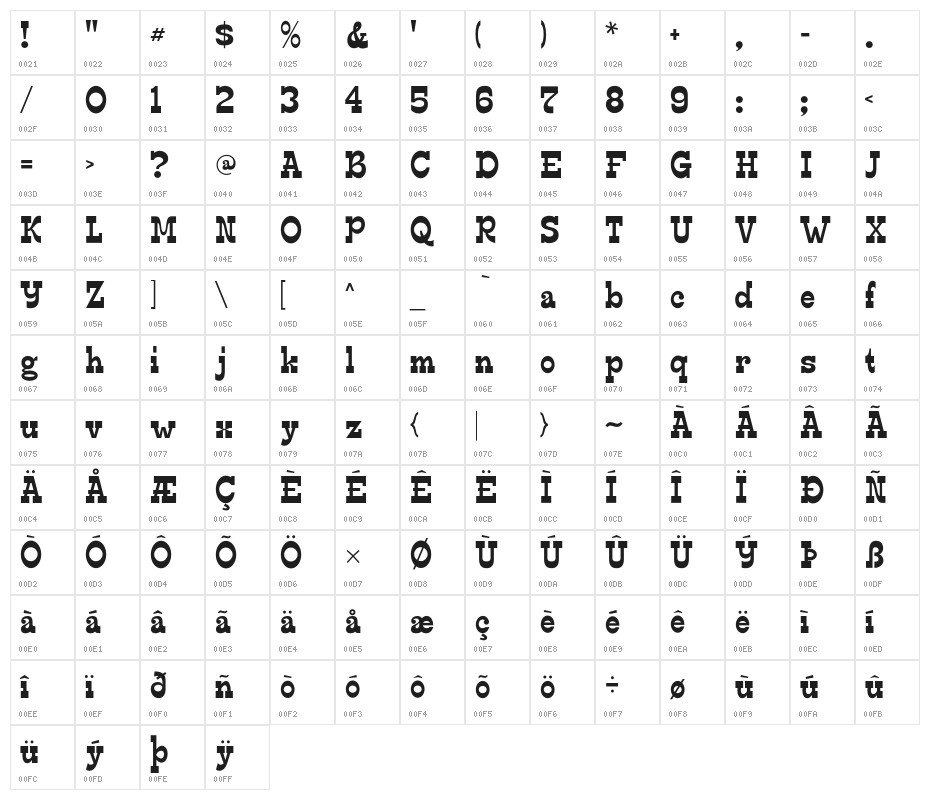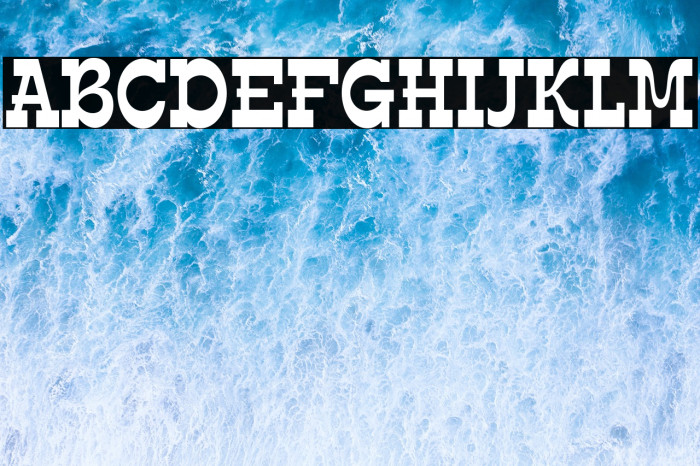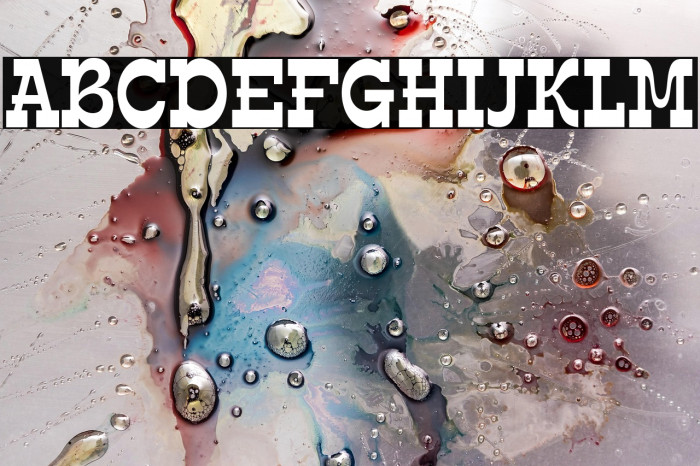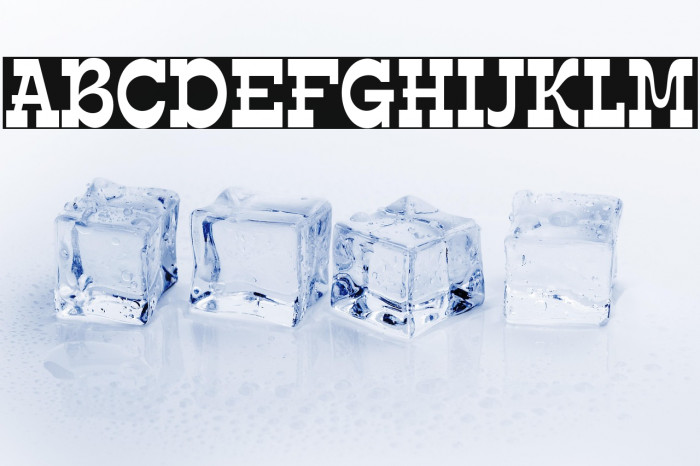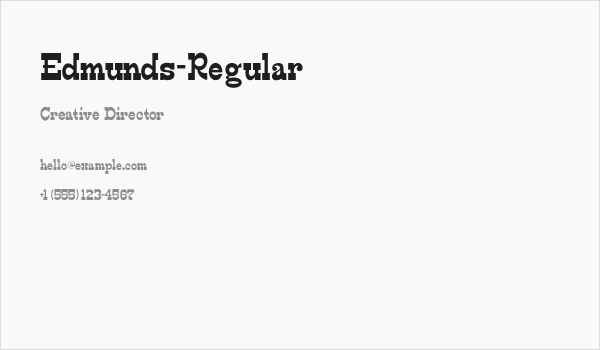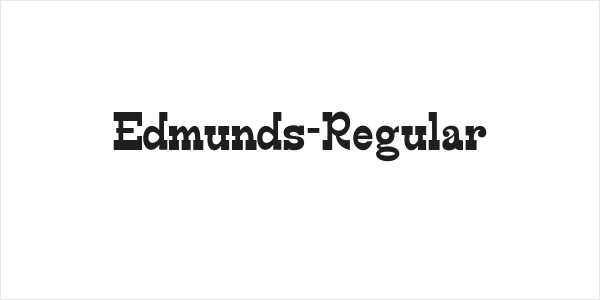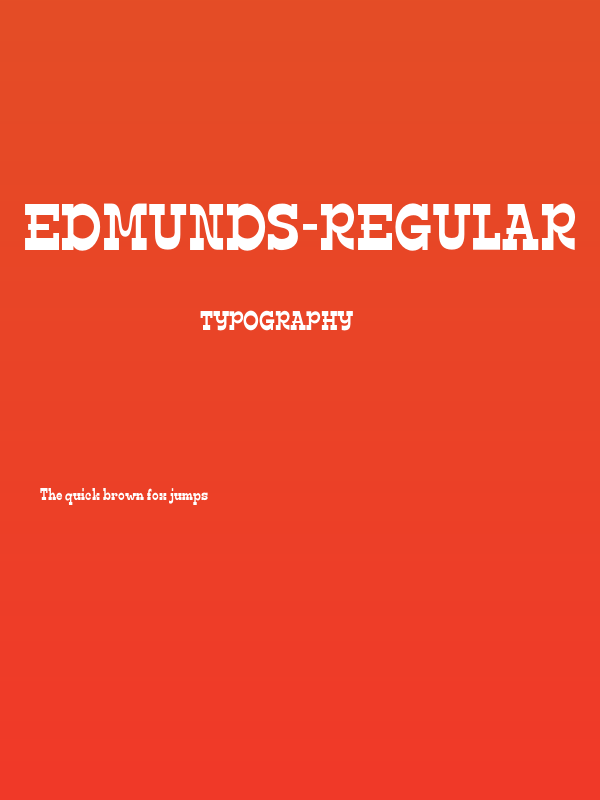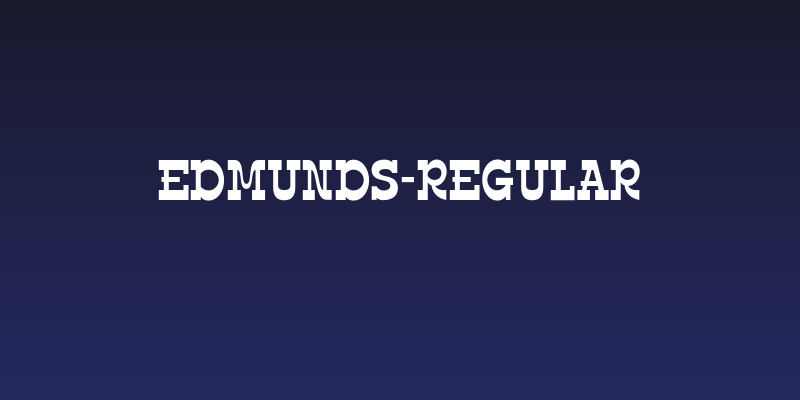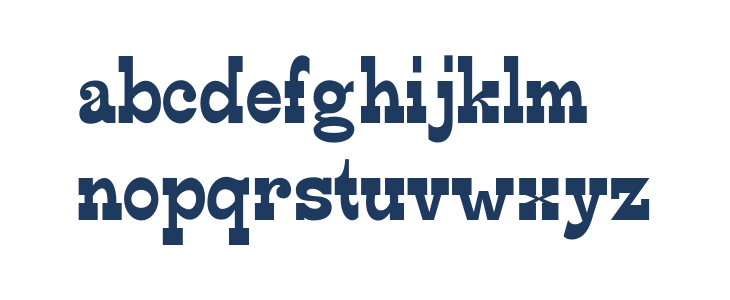
Edmunds-Regular Font
Edmunds-Regular Description
This font is a bold and striking slab serif typeface characterized by its thick, block-like serifs and strong presence. The uppercase letters are robust and commanding, while the lowercase letters maintain a consistent weight, offering a harmonious balance. The numerals are equally bold, ensuring visibility and impact. Special characters are designed with the same boldness, making them stand out. The overall design is clean and modern, yet it retains a classic touch due to the slab serif elements. This font is versatile, suitable for a variety of design needs.
| Proposed Projects | Ideal for headlines, posters, branding, and any project requiring a strong visual impact. |